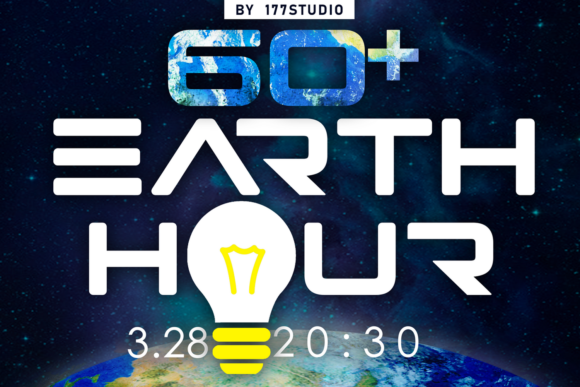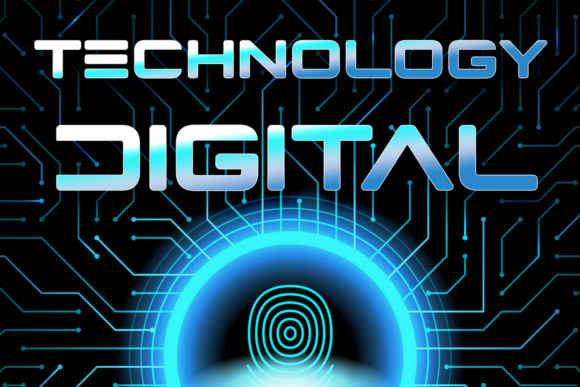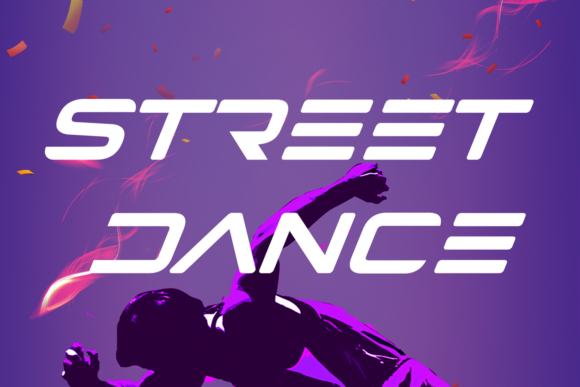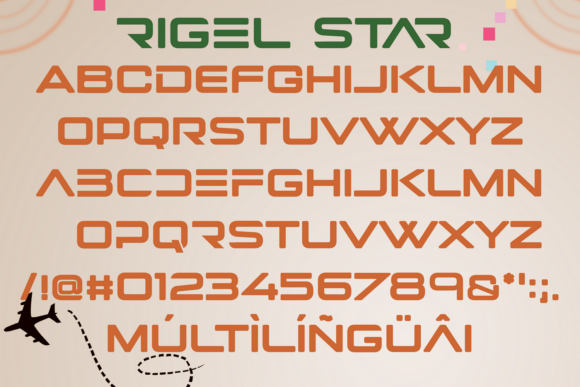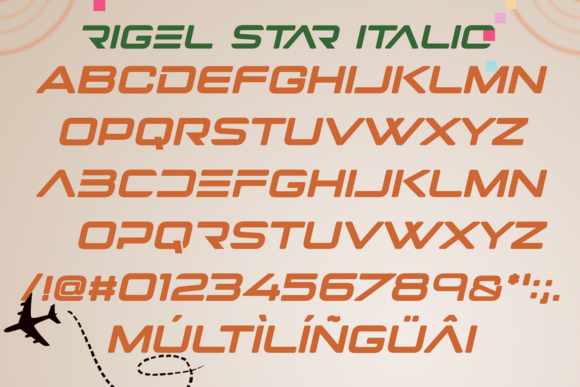
Introduction to Rigel Star Font
Rigel Star is a futuristic display font.
It celebrates abstract shapes in all their eclectic beauty Add it to your creative ideas and notice how it makes them stand out.